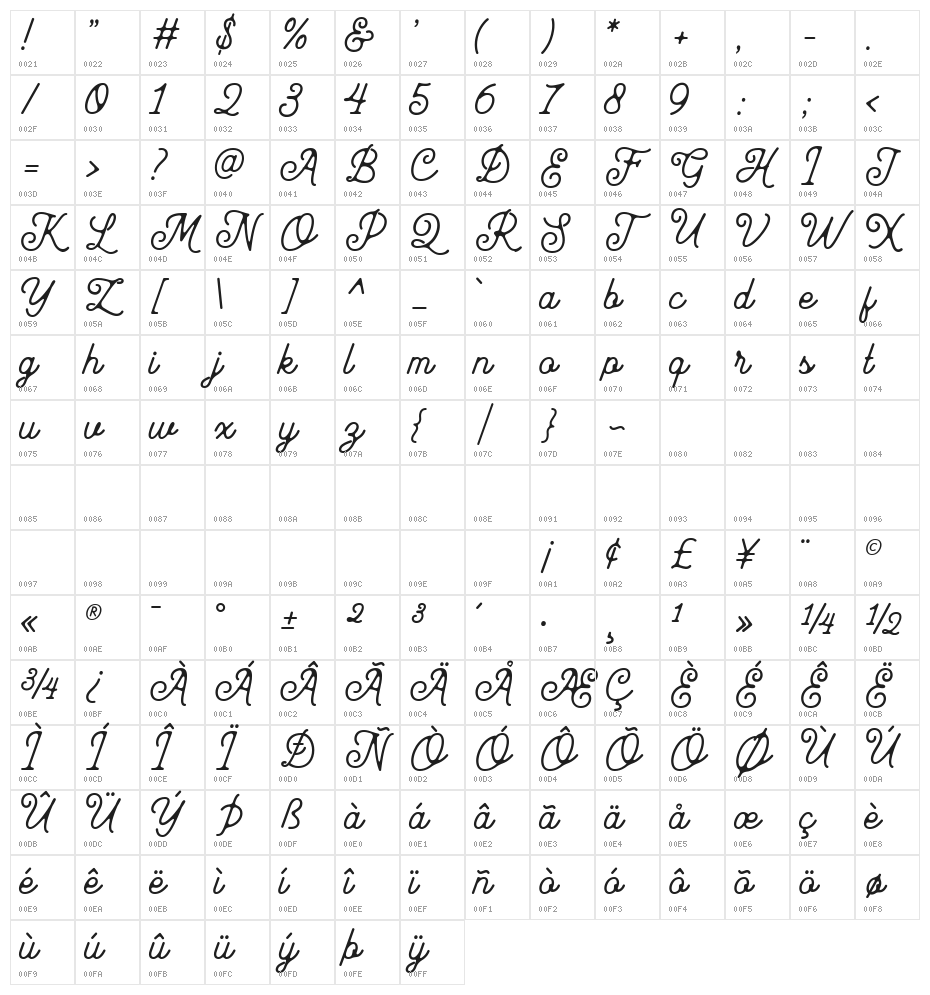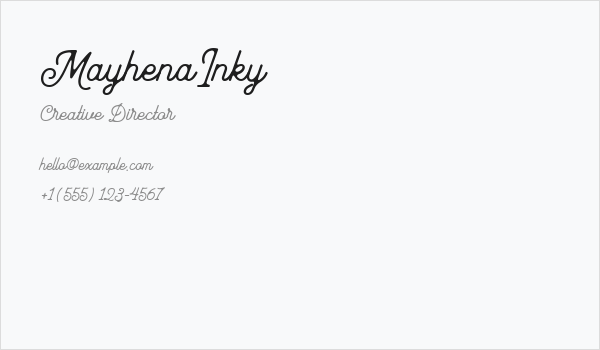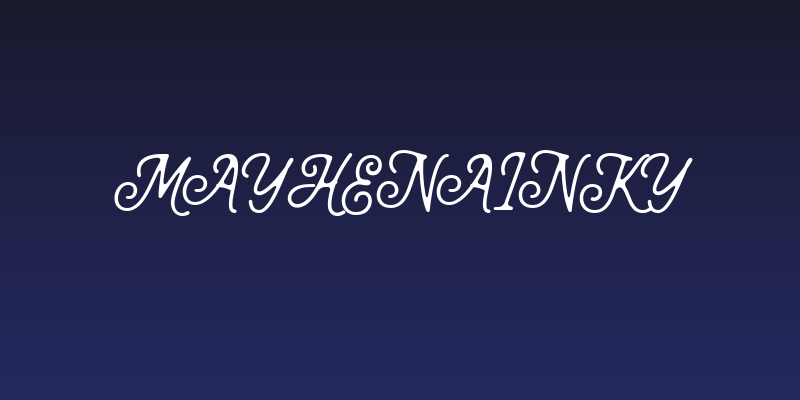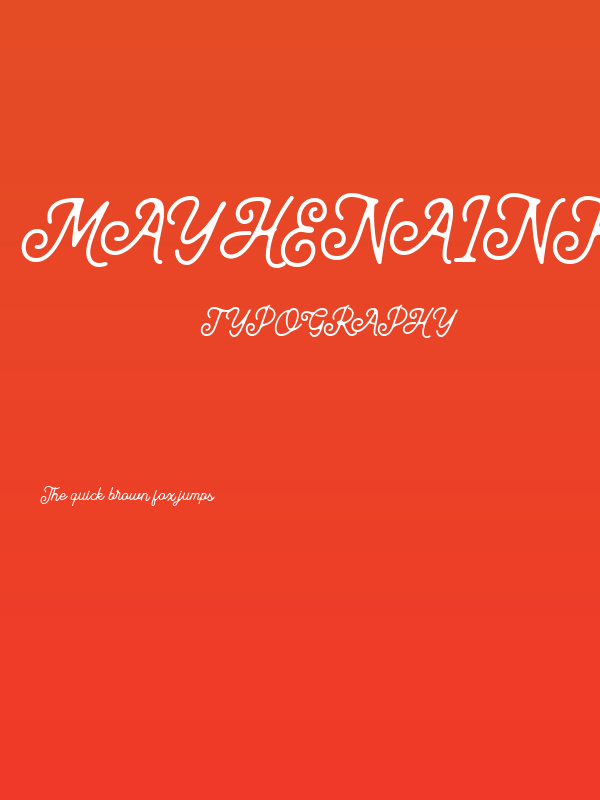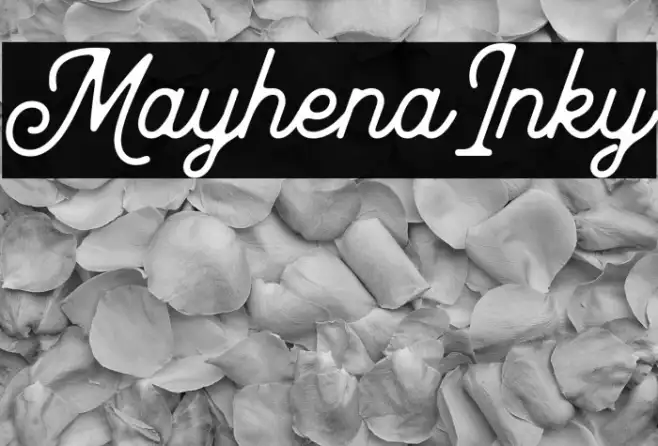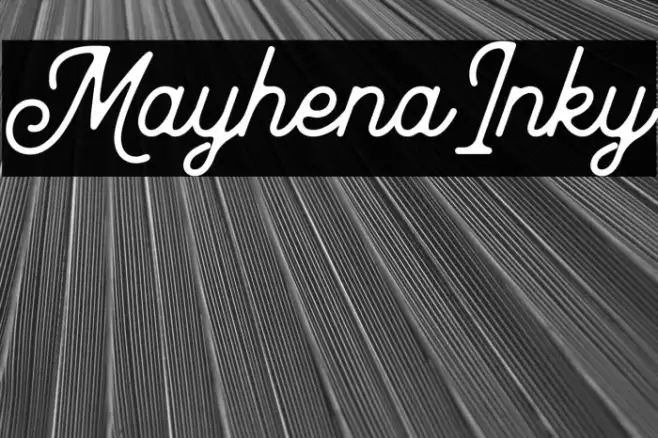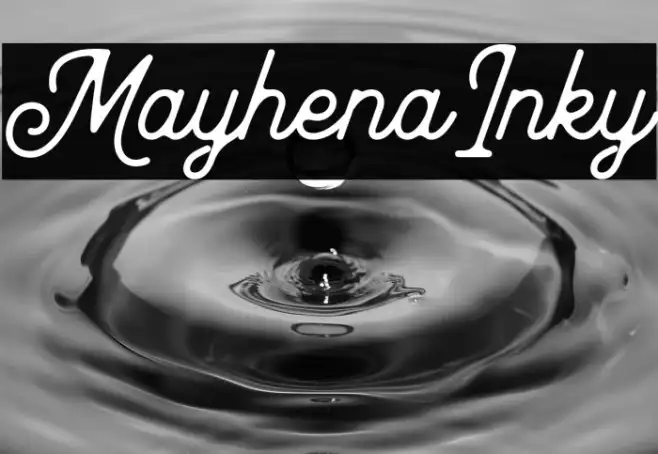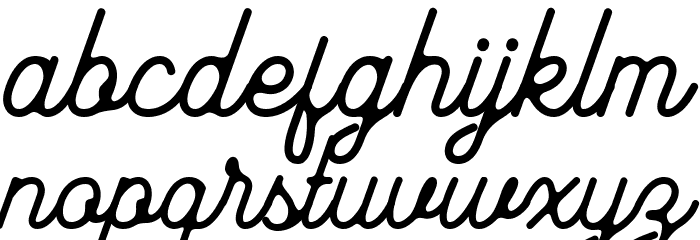
MayhenaInky Font
MayhenaInky Description
This font features a playful and elegant script style with a handwritten appearance. The letters are connected, creating a fluid and continuous flow that mimics cursive handwriting. The uppercase letters are ornate with swirls and loops, adding a decorative touch. The lowercase letters maintain a consistent style, with smooth curves and rounded edges. Numbers and special characters are designed to match the overall aesthetic, ensuring a cohesive look. The font's design is both stylish and readable, making it suitable for a variety of creative projects.
| Use Case | Logos, Invitations, Greeting cards |